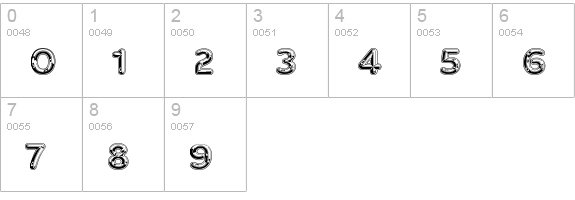
ChromiumOneEF Font Details
ChromiumOneEF is a sleek and modern font that exudes sophistication and elegance. With its clean lines and sharp angles, this typeface is perfect for adding a touch of contemporary style to any design project. The versatility of ChromiumOneEF makes it suitable for a wide range of applications, from branding to editorial design. What sets ChromiumOneEF apart is that it is not only visually appealing but also completely free to download. You can easily access this stunning font at FontsMarket.com, where you can enhance your creative projects without any cost. Don't miss out on the opportunity to elevate your designs with the striking ChromiumOneEF font.